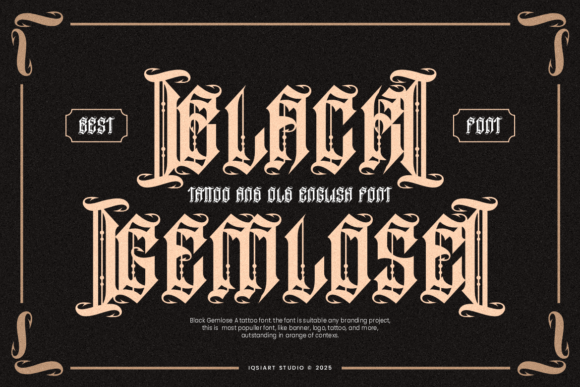
Introducing Black Gemlose Font: The Ultimate Bold and Thick Lettered Blackletter Font
Are you looking for a font that can add a touch of elegance and sophistication to your projects? Look no further than the Black Gemlose Font. This bold and thick lettered blackletter font is perfect for designers who want to make a statement with their typography. In this article, we’ll take a closer look at the Black Gemlose Font, its features, and how you can use it to take your designs to the next level.
What is Black Gemlose Font?
Black Gemlose Font is a bold and thick lettered blackletter font that is designed to make a statement. Its unique and elegant design makes it perfect for a variety of projects, from logos and branding to packaging and advertising. The font is inspired by traditional blackletter typography, but with a modern twist that makes it stand out from the crowd.
Key Features of Black Gemlose Font
So, what makes Black Gemlose Font so special? Here are some of its key features:
- Bold and Thick Lettering: The Black Gemlose Font features bold and thick lettering that is perfect for making a statement. Its unique design ensures that your text stands out from the crowd, even at small sizes.
- PUA Encoded: The Black Gemlose Font is PUA encoded, which means that you can access all of the glyphs and swashes with ease. This makes it easy to customize your text and add unique touches to your designs.
- Elegant Design: The Black Gemlose Font has an elegant design that is perfect for a variety of projects. Its traditional blackletter roots are combined with modern elements to create a unique and sophisticated look.
- High-Quality: The Black Gemlose Font is a high-quality font that is designed to deliver exceptional results. Its clear and crisp design ensures that your text looks great, even at large sizes.
How to Use Black Gemlose Font
Using the Black Gemlose Font is easy. Here are some tips to help you get started:
- Pair it with Other Fonts: The Black Gemlose Font pairs well with other fonts, especially sans-serif fonts. Try pairing it with a clean and simple font to create a striking contrast.
- Use it for Headings: The Black Gemlose Font is perfect for headings and titles. Its bold and thick lettering makes it easy to read, even at small sizes.
- Add Swashes and Glyphs: The Black Gemlose Font comes with a range of swashes and glyphs that you can use to customize your text. Try adding a few swashes to your text to give it a unique touch.
Benefits of Using Black Gemlose Font
So, why should you use the Black Gemlose Font? Here are some of its benefits:
- Unique Design: The Black Gemlose Font has a unique design that will set your projects apart from the crowd. Its elegant and sophisticated look is perfect for designers who want to make a statement.
- Ease of Use: The Black Gemlose Font is easy to use, even for beginners. Its PUA encoding makes it easy to access all of the glyphs and swashes, and its clear and crisp design ensures that your text looks great.
- High-Quality: The Black Gemlose Font is a high-quality font that is designed to deliver exceptional results. Its clear and crisp design ensures that your text looks great, even at large sizes.
- Versatility: The Black Gemlose Font is versatile and can be used for a variety of projects, from logos and branding to packaging and advertising.
In conclusion, the Black Gemlose Font is a bold and thick lettered blackletter font that is perfect for designers who want to make a statement with their typography. Its unique and elegant design, combined with its PUA encoding and high-quality design, make it a must-have font for any designer. Whether you’re working on a logo, branding project, or packaging design, the Black Gemlose Font is sure to deliver exceptional results.
- What is the Black Gemlose Font?: The Black Gemlose Font is a bold and thick lettered blackletter font that is designed to make a statement.
- Is the Black Gemlose Font PUA encoded?: Yes, the Black Gemlose Font is PUA encoded, which means that you can access all of the glyphs and swashes with ease.
- What projects is the Black Gemlose Font suitable for?: The Black Gemlose Font is suitable for a variety of projects, including logos, branding, packaging, and advertising.